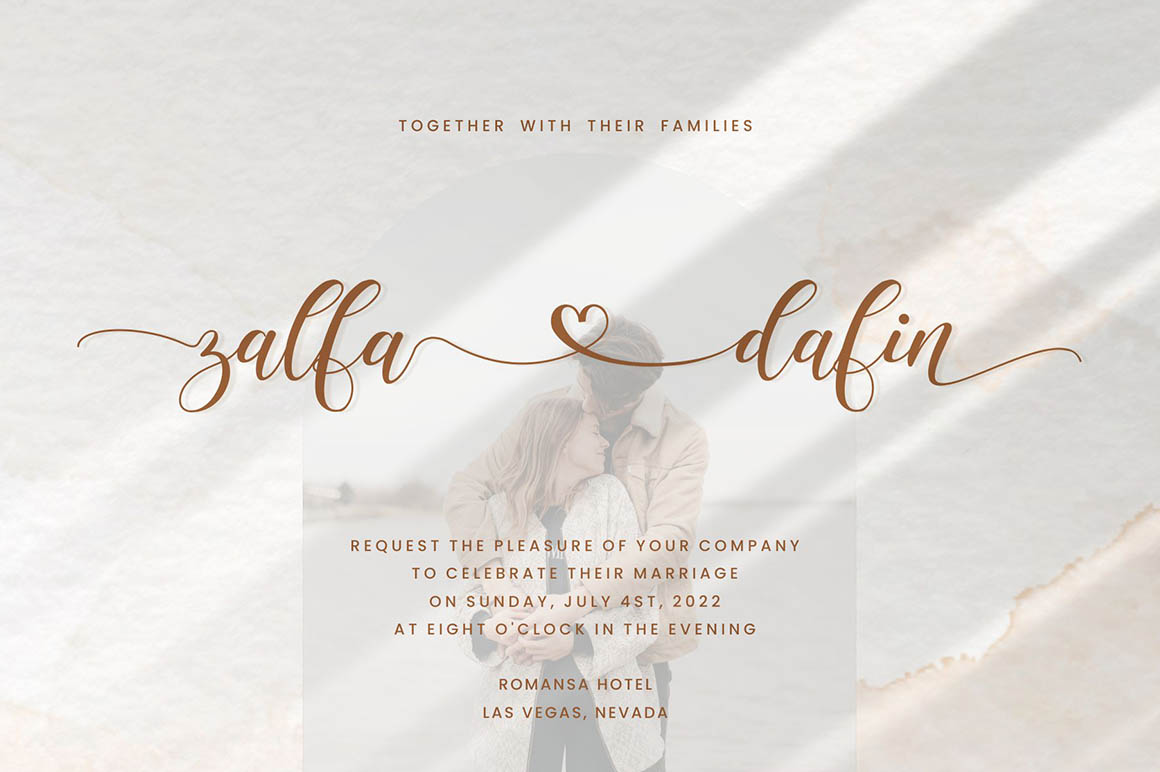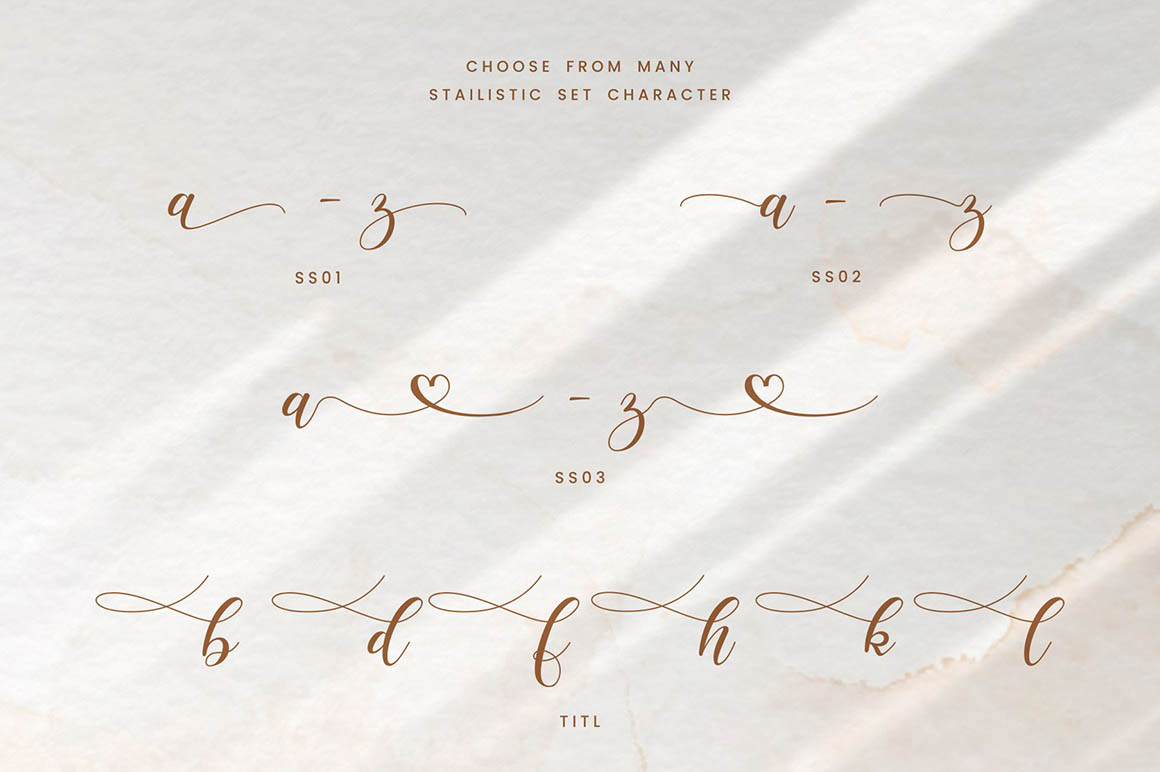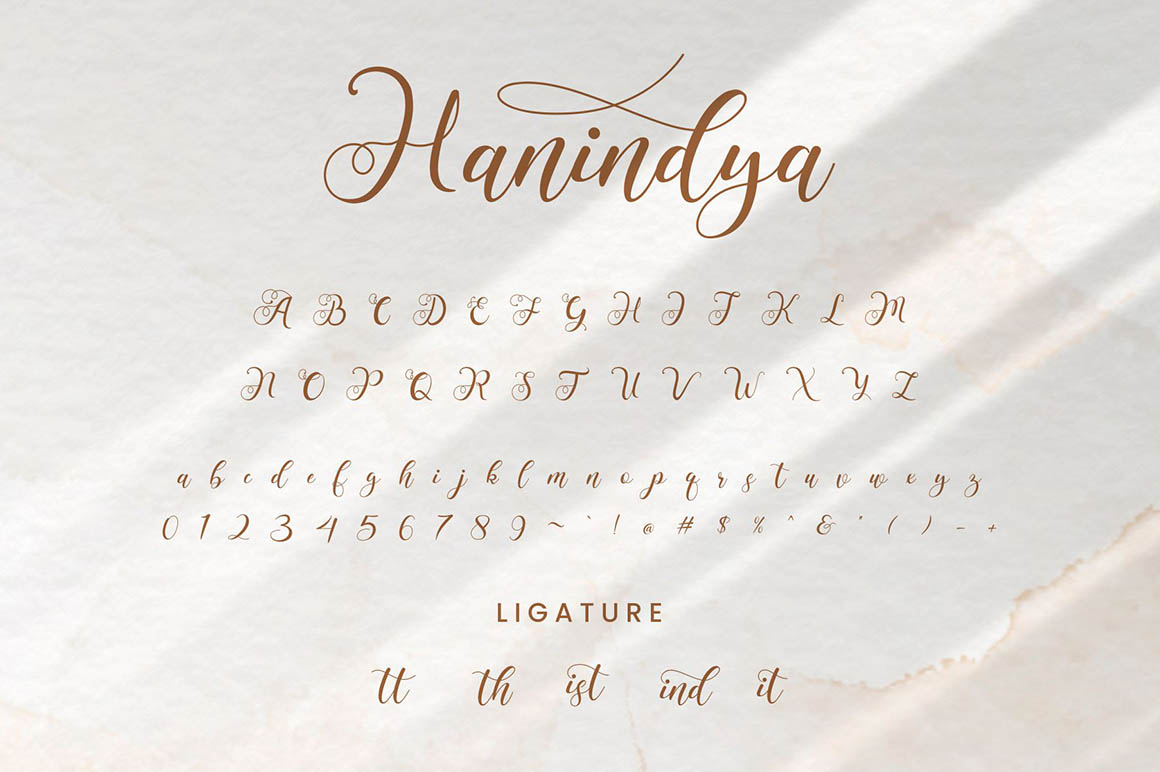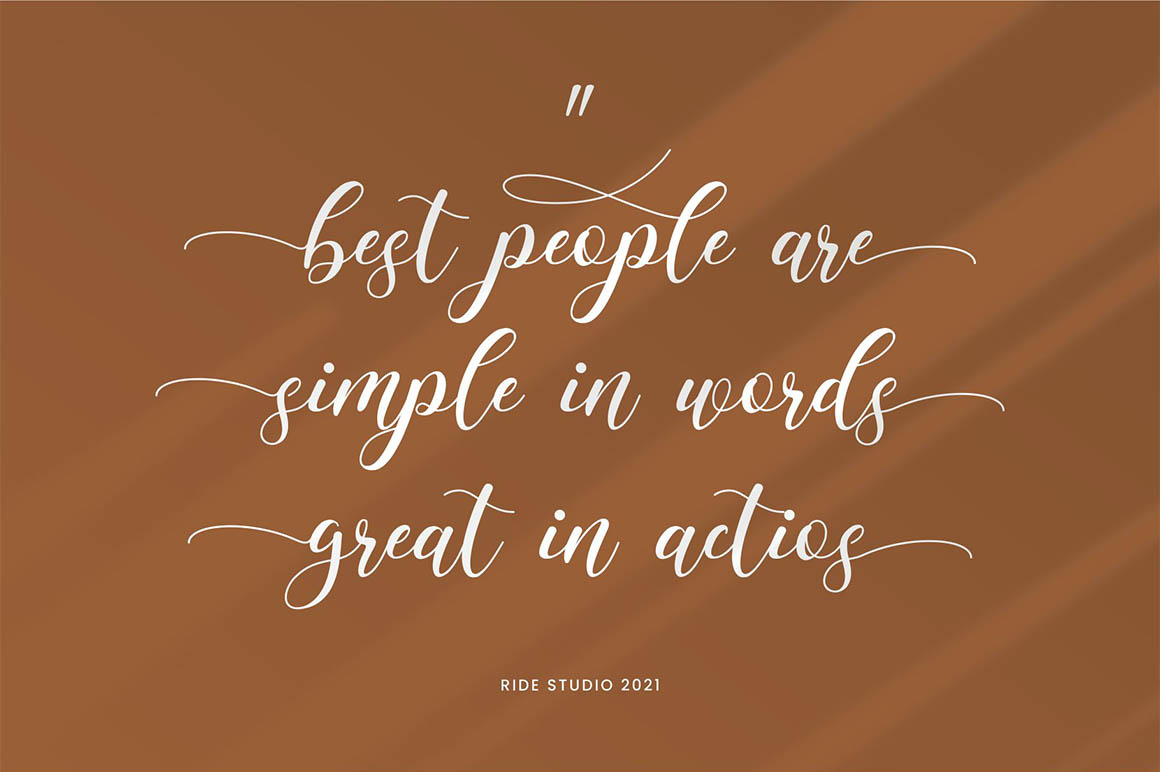
Hanindya Font
Hanindya Script Font
It’s a smooth, elegant and stylish handwritten font. It has a beautiful and balanced character and as a result, fits perfectly into any card, invitation or wedding decoration design. as well as various other designs such as company logos, business cards, book titles, brand names, and others.